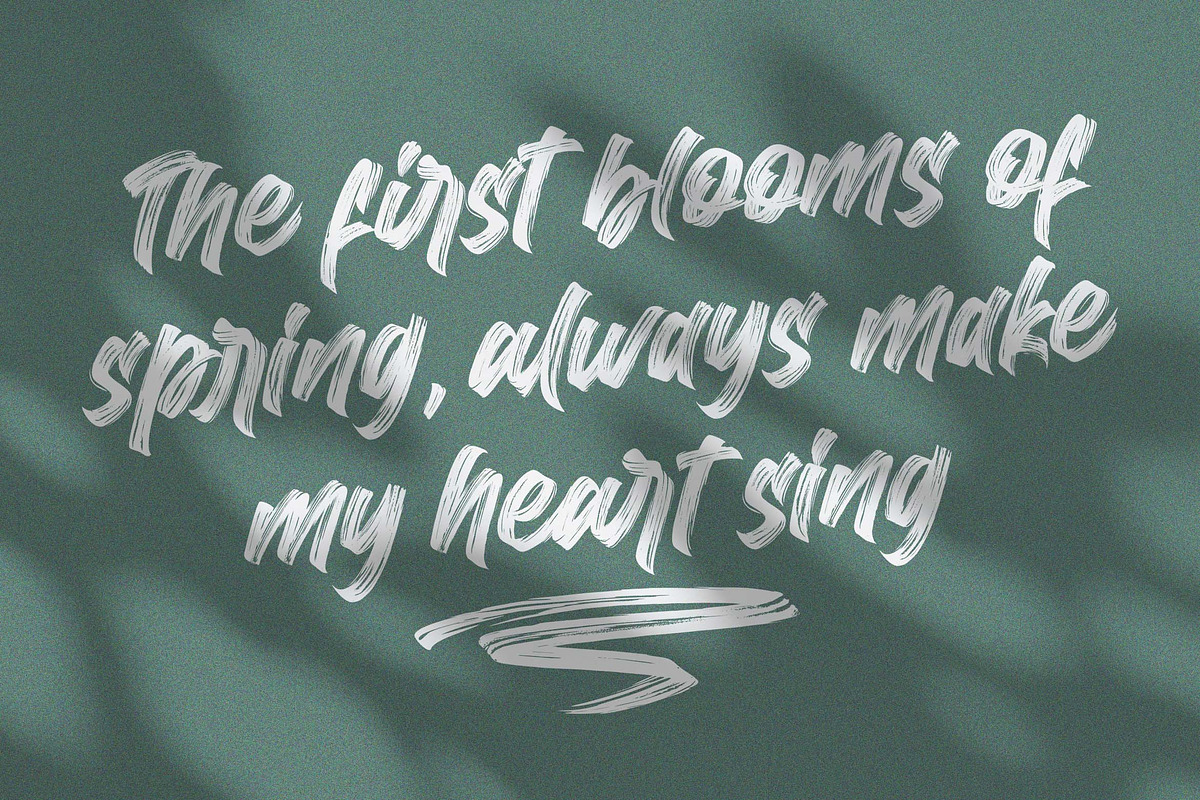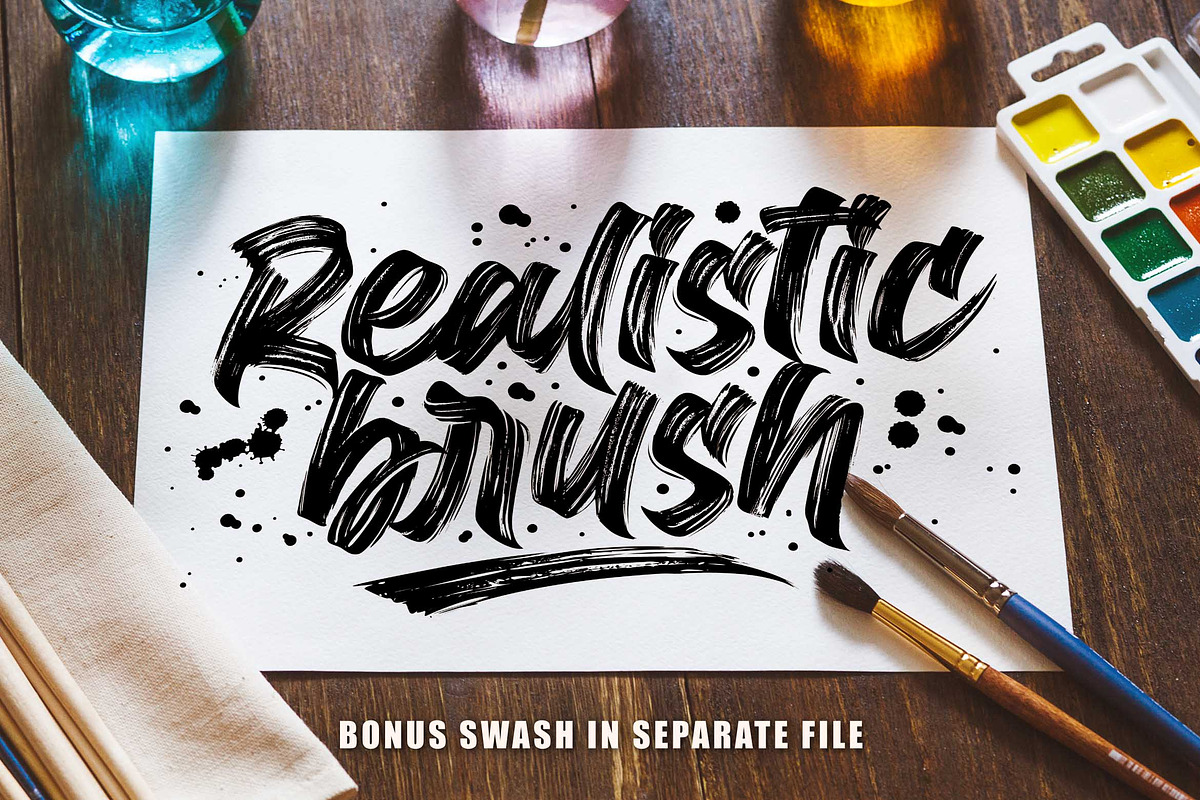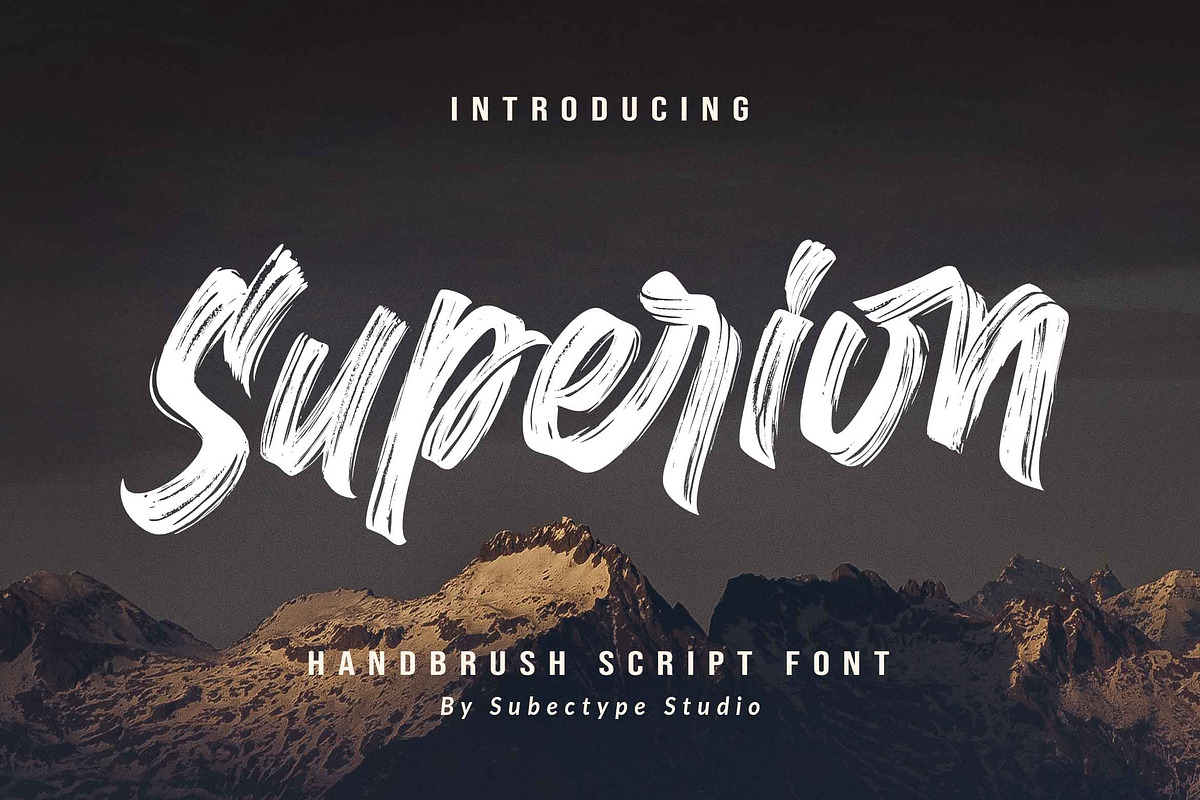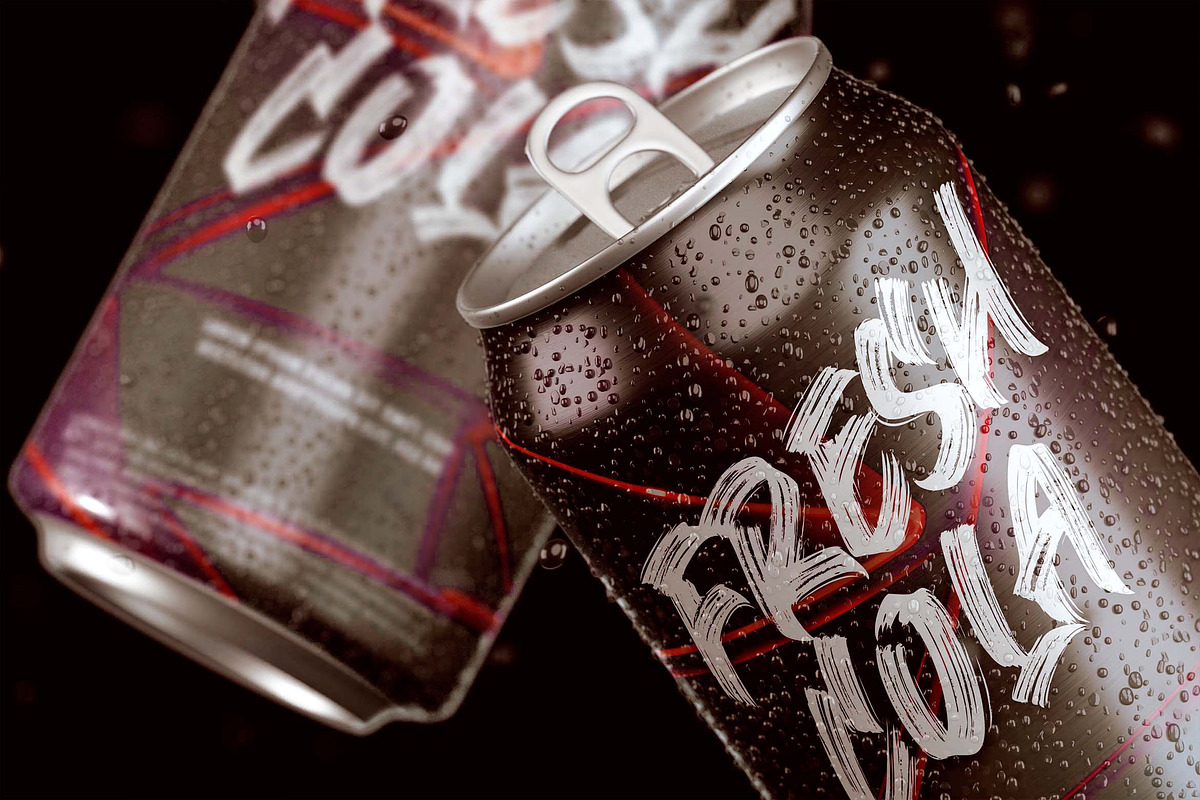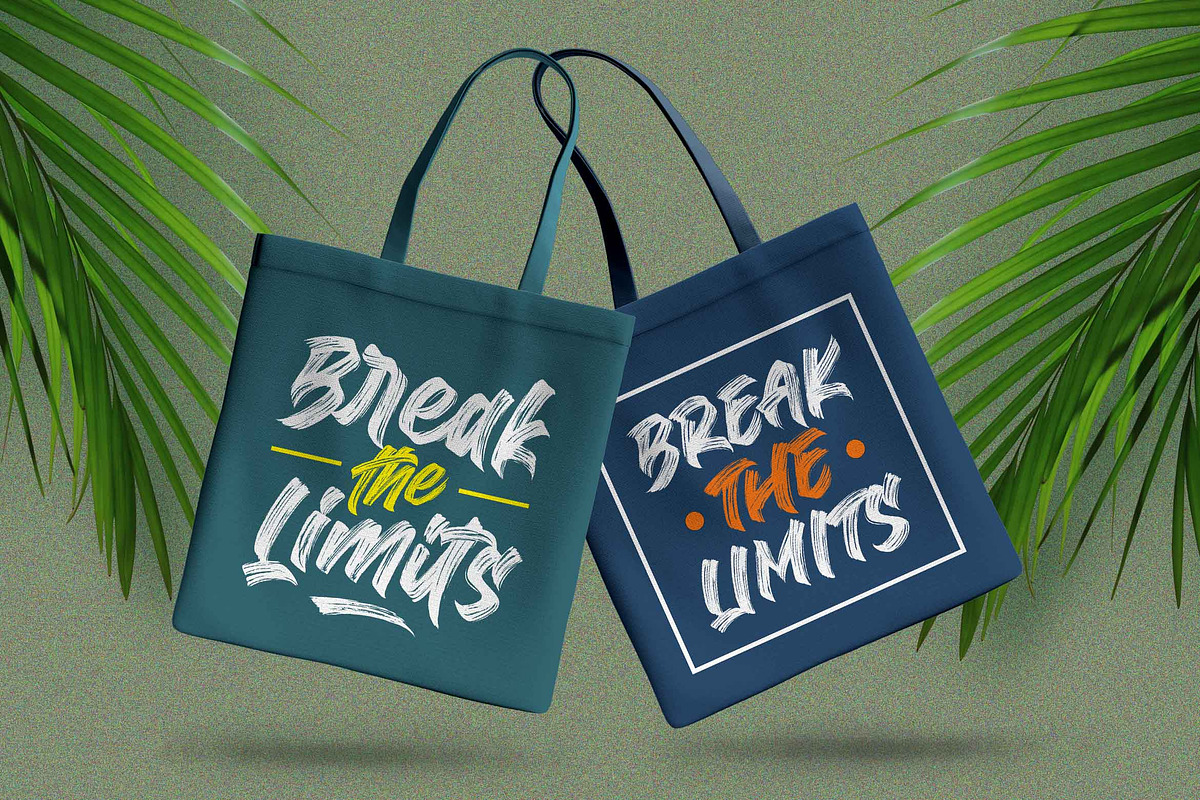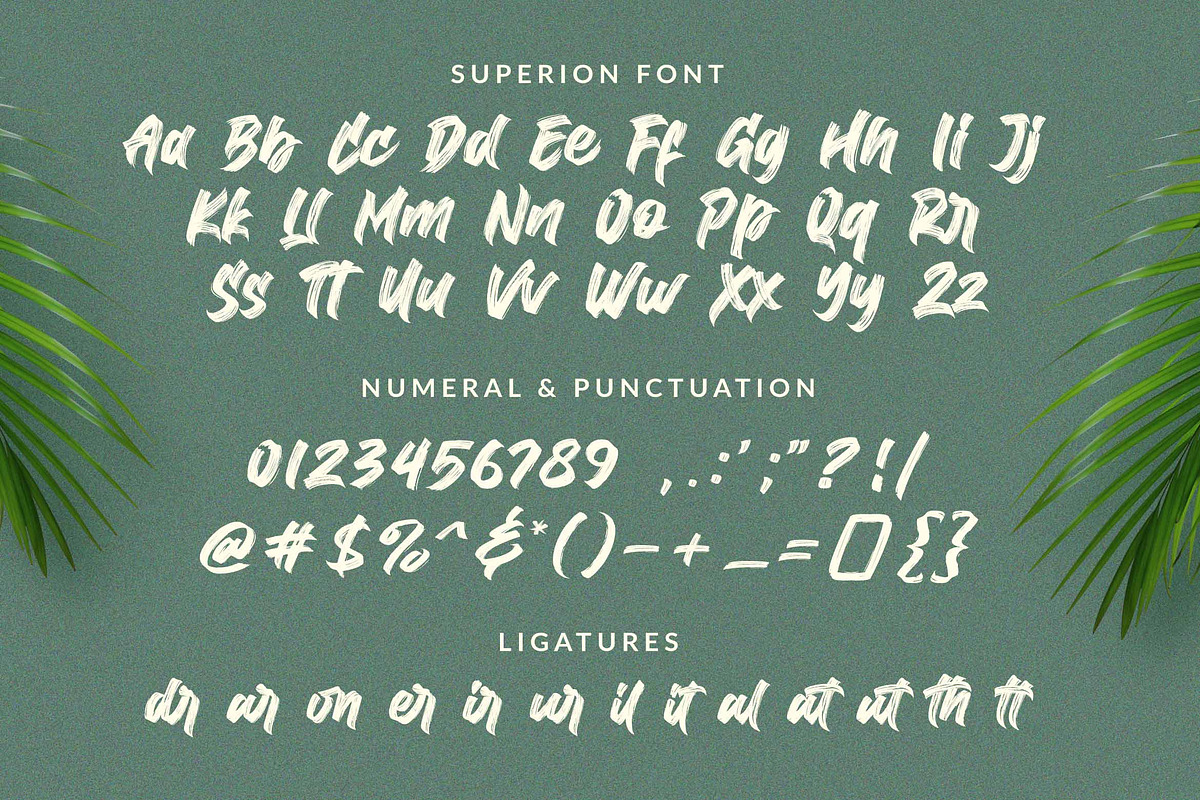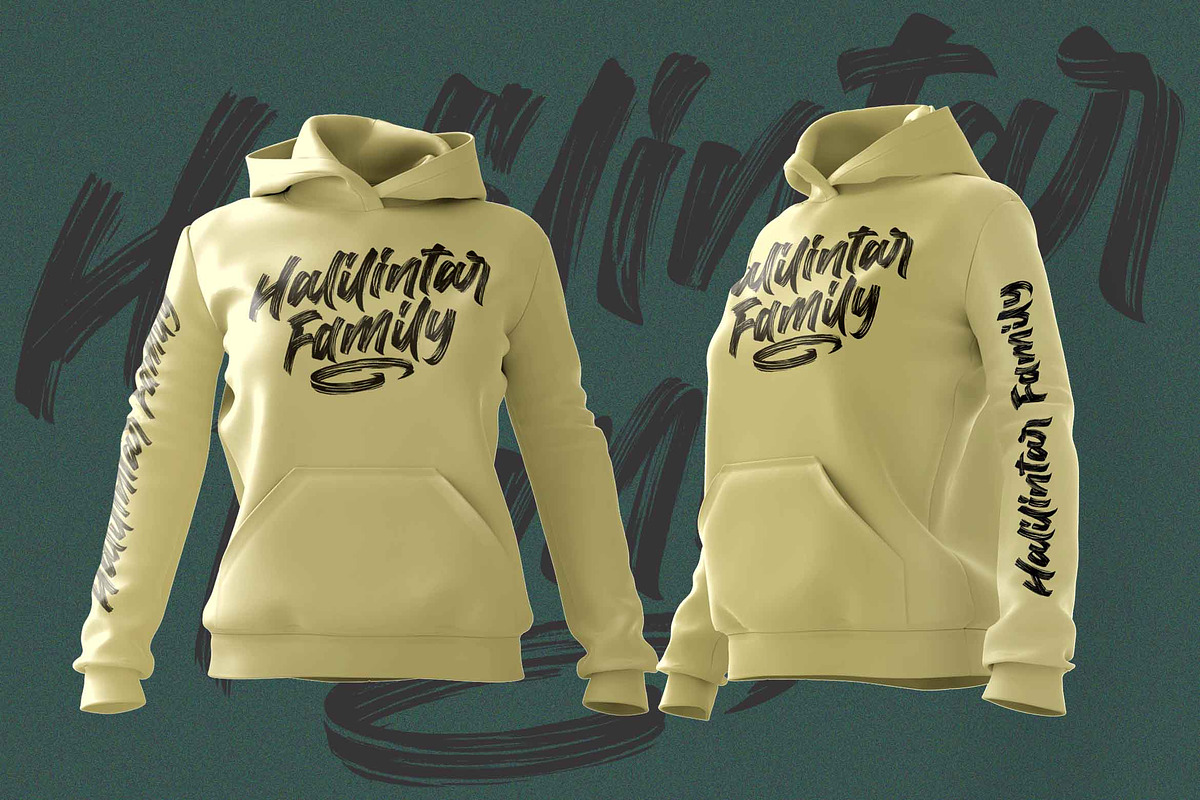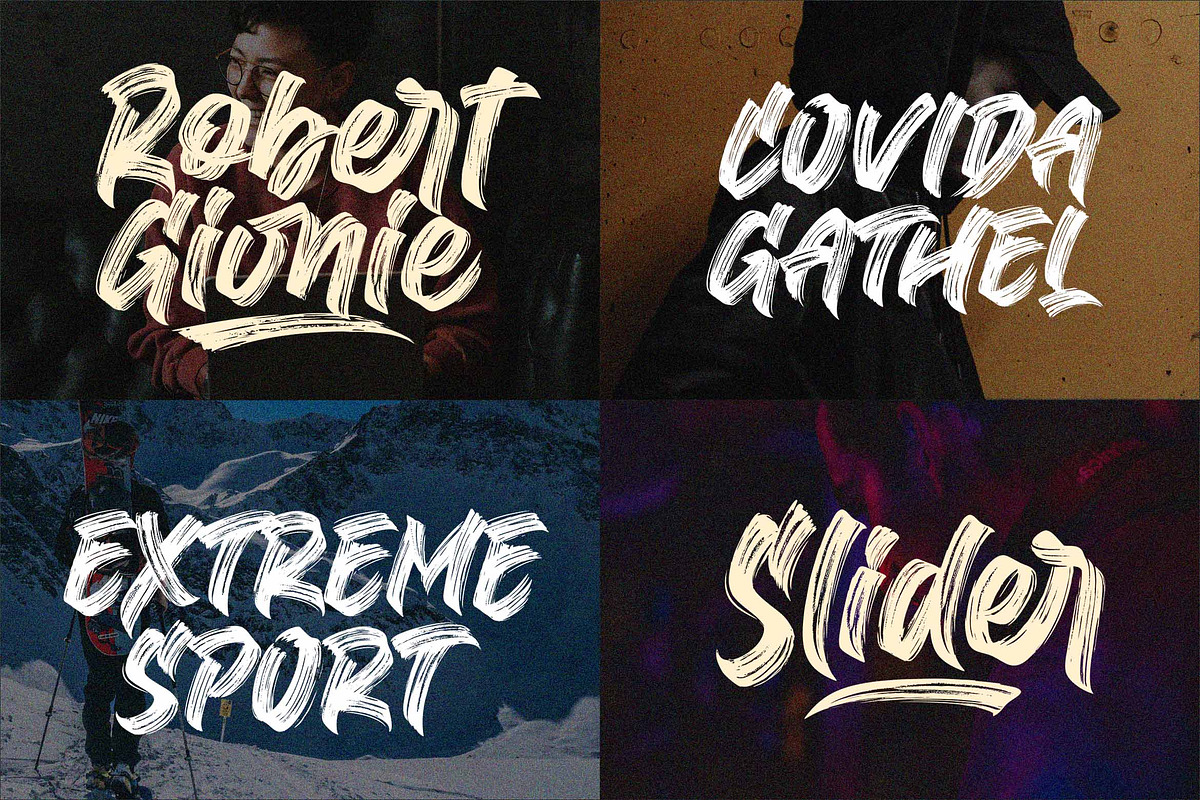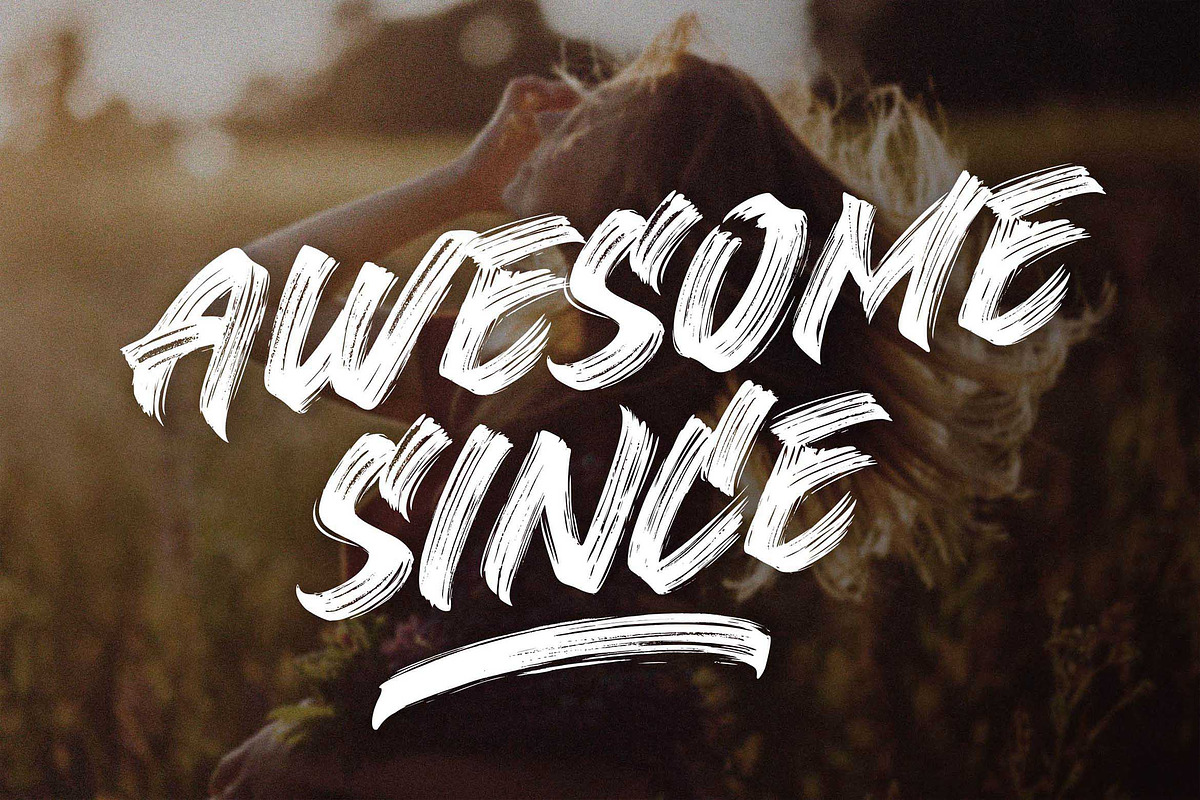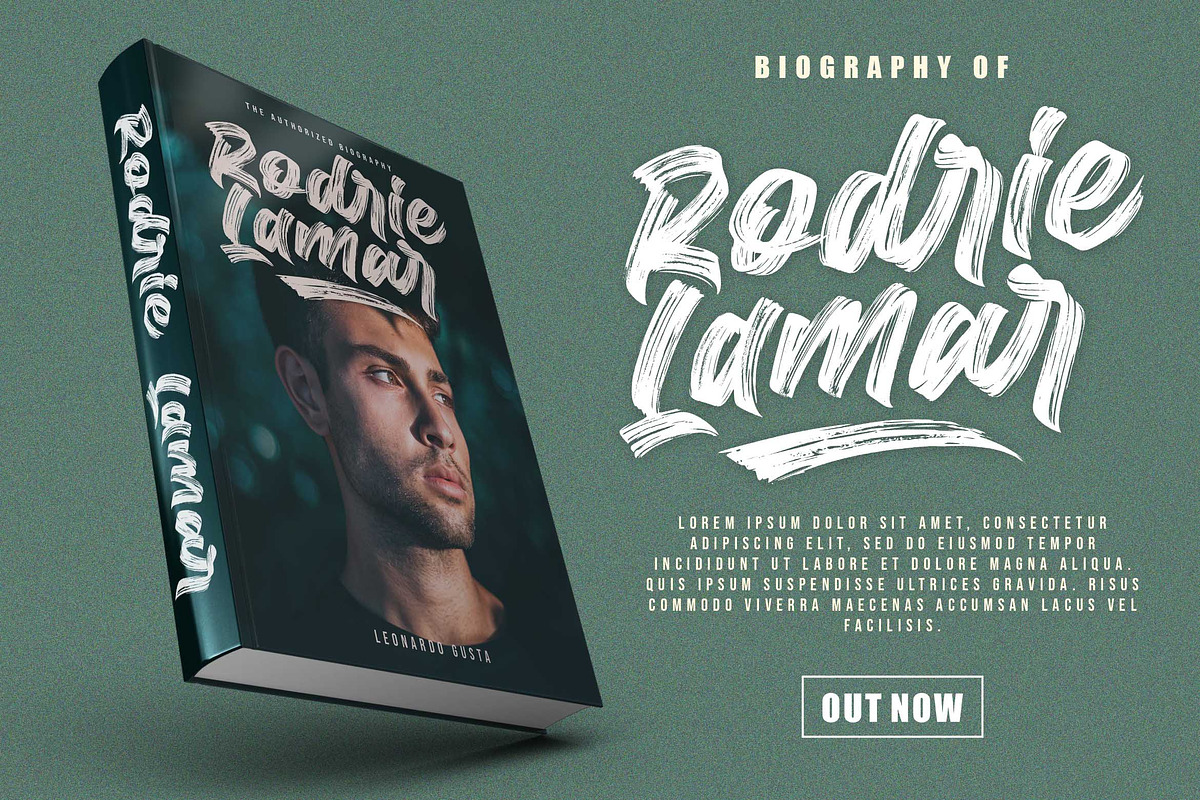
Superion font is a supercharged brush font style, street-wise brush font bursting with energy. With extra attention to quick strokes and sharp details. This font is perfect for challenging jobs, titles, t-shirts, websites, hoodies, clothing, headline, logotype, branding, advertising, event and various print and digital media with energy.